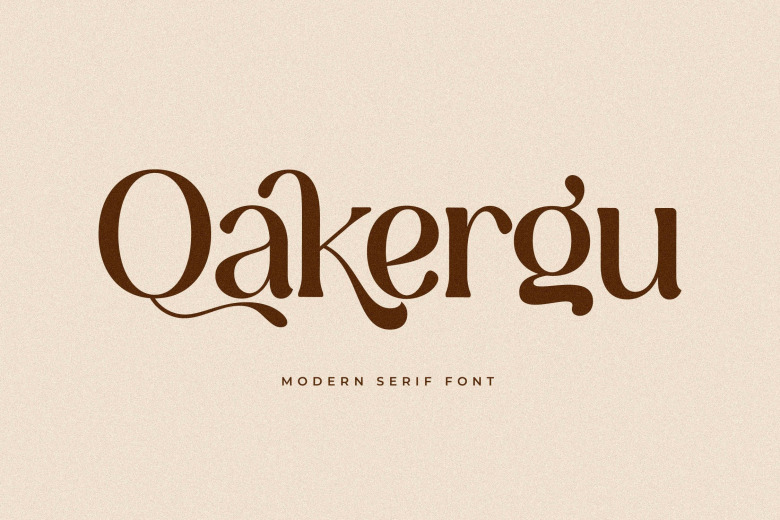
Qakergu Font
Qakergu is a sophisticated and charming serif font with a touch of fashion. It was designed specifically for feminine projects and luxury and eleganceś With its modern,
Qakergu Serif Font